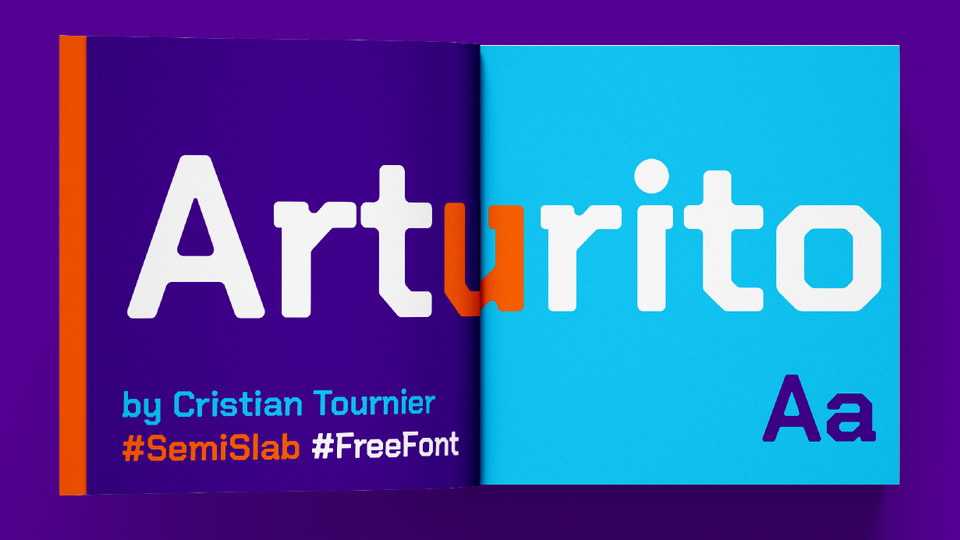
Download Arturito font, a semi-slab typeface with high and low case glyphs, developed for brands, highlights and headlines. Arturito presented geometric structure and its curved vertices make it stand out in any situation that applies.
Designer: Cristian Tournier